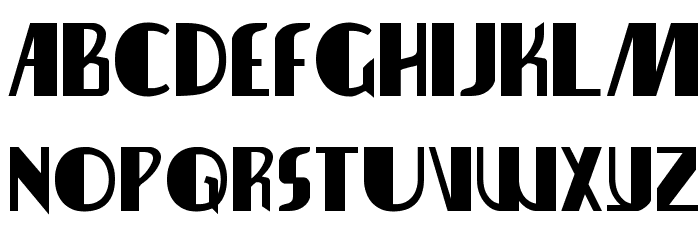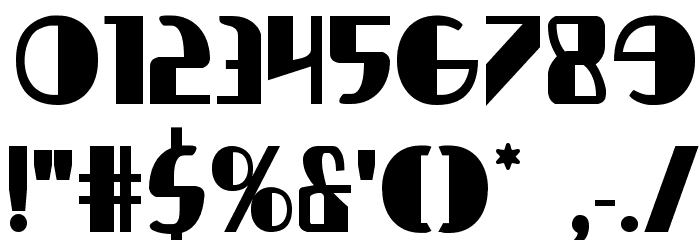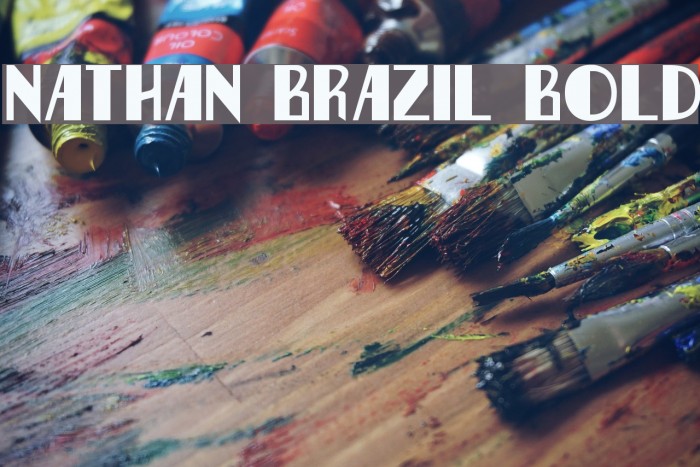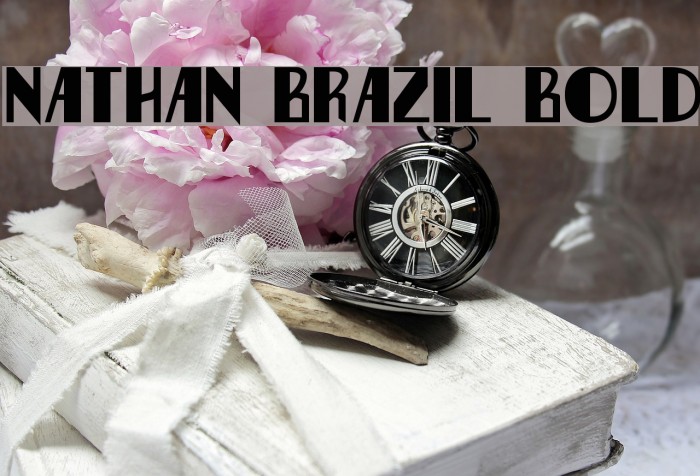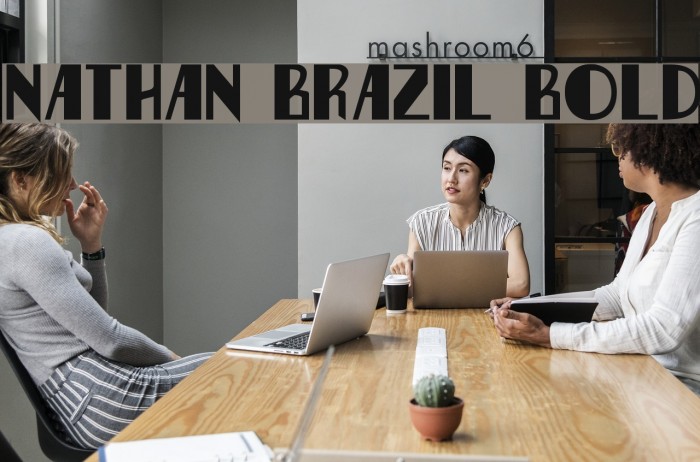
Nathan Brazil Bold Font
This font features a bold and striking design with a modern, geometric aesthetic. The characters are crafted with a unique blend of sharp angles and smooth curves, creating a dynamic and eye-catching appearance. The uppercase letters exhibit a strong presence with their thick strokes and distinctive shapes, while the lowercase letters maintain a consistent style that complements the overall design. The numerals are equally bold, ensuring readability and impact. Special characters are creatively designed to match the font's bold style, making it suitable for various creative applications.
A bold, geometric font with sharp angles and smooth curves.
- Proposed Projects: Ideal for branding, posters, headlines, and any project requiring a bold, modern look.